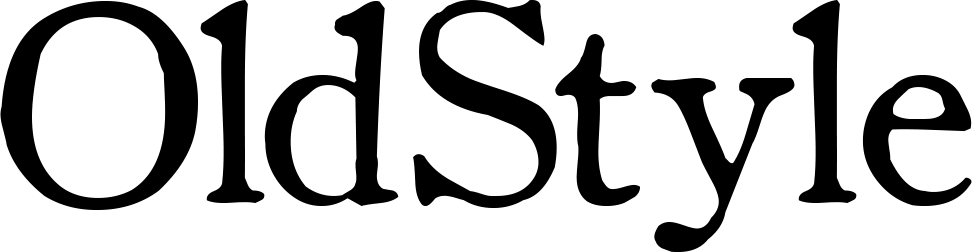
OldStyle Font
Here we are offering an old-style serif font that delivers a vintage feel and you can create a professional, informal, and trustworthy typography by adding it! OldStyle font is available in a few styles alongside the distressed characters with a profound look.
OldStyle font includes mixed case alphabets, numbers, and punctuations. You can carry out this font wherever you wish for a well-established design and a few common places to include it are books, texts, posters, branding, and more.